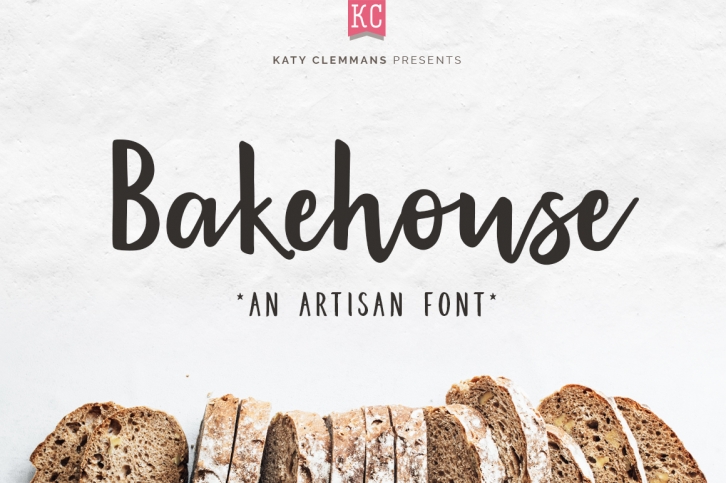
Bakehouse script is a beautiful font that was designed by Katy Clemmans. It's a great choice for designers and creatives who need such a font. It was released on April 23, 2019 and the file size is 20.50 MB. Bakehouse script may give a more youthful, expressive and casual look to your project. It is a very beautiful, refined, elegant, and high-quality font.